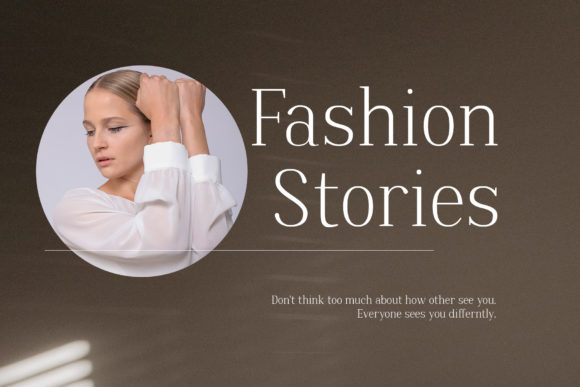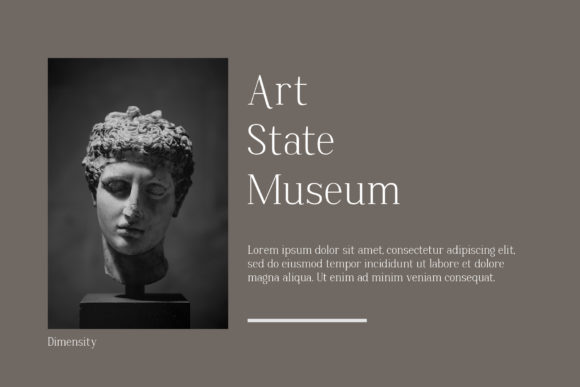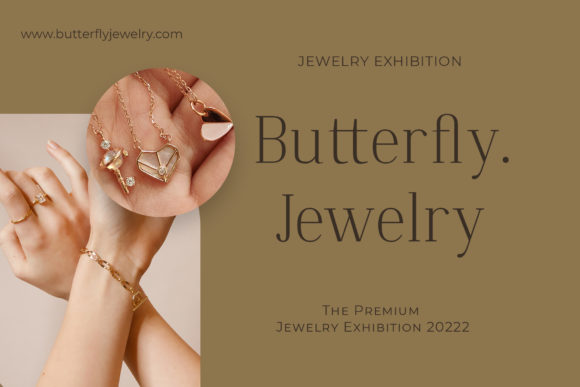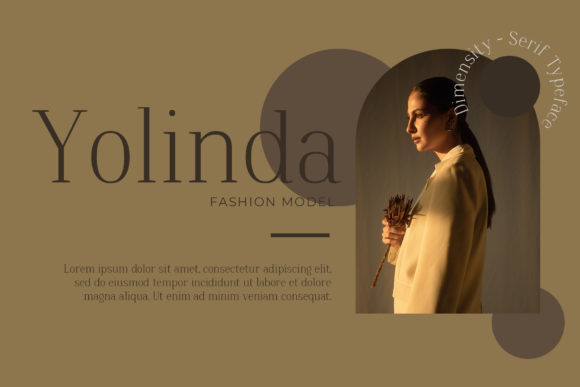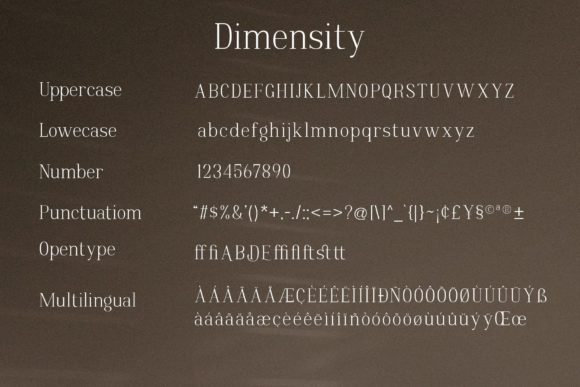
Introducing Dimensity Font: Elevate Your Designs with Elegance and Charm
In the world of typography, a font can make all the difference in the success of a design project. For designers and crafters seeking to add a touch of sophistication and luxury to their work, look no further than the Dimensity Font. This modern serif font is designed to embody elegance and charm in every character, making it the perfect choice for a wide range of applications.
What is Dimensity Font?
Dimensity is a carefully crafted serif font that exudes refinement and poise. Its sleek lines, precise curves, and balanced proportions make it an excellent choice for designs that demand a high level of sophistication. Whether you’re working on a luxury logo, branding materials, editorial designs, or promotional materials, Dimensity Font is sure to impress.
Key Features of Dimensity Font
So, what sets Dimensity Font apart from other fonts on the market? Here are just a few of its key features:
- Complete Character Set: Dimensity Font includes all lowercase and uppercase characters, ensuring that you have everything you need to create stunning designs.
- Numbers and Punctuation: The font also includes a full set of numbers and punctuation marks, making it easy to craft beautiful text.
- Standard Ligatures: Dimensity Font features an array of standard ligatures, which help to create a seamless and cohesive look in your designs.
- International Characters: With a selection of international characters, you can use Dimensity Font to create designs that cater to a global audience.
Perfect for Luxury and Fashion Brands
Dimensity Font is particularly well-suited for luxury logos, branding, and promotional materials. Its elegant and refined appearance makes it an excellent choice for high-end fashion brands, cosmetic companies, and lifestyle publications. Whether you’re creating a logo, brochure, or magazine spread, Dimensity Font is sure to help you achieve a sophisticated and luxurious look.
Applications for Dimensity Font
The versatility of Dimensity Font makes it suitable for a wide range of applications, including:
- Luxury Logos: Create a lasting impression with a custom logo that exudes elegance and sophistication.
- Branding: Establish a strong brand identity with Dimensity Font, perfect for high-end companies and lifestyle brands.
- Editorial Designs: Add a touch of refinement to your editorial designs, including magazines, newspapers, and books.
- Women’s Magazines: Dimensity Font is an excellent choice for women’s magazines, providing a feminine and sophisticated look.
- Cosmetic Brands: Elevate your cosmetic brand with a font that embodies luxury and glamour.
- Promotional Designs: Create eye-catching promotional materials, including brochures, flyers, and posters.
- Fashion Industry: Dimensity Font is perfect for fashion brands, designers, and retailers seeking to create a high-end look.
Why Choose Dimensity Font?
With so many fonts available, why choose Dimensity Font? Here are just a few reasons:
- Unique and Elegant Design: Dimensity Font boasts a distinctive and refined design that sets it apart from other fonts.
- High-Quality Typography: The font is carefully crafted to ensure precise and clean typography, making it perfect for high-end designs.
- Versatility: Dimensity Font can be used for a wide range of applications, from luxury logos to editorial designs.
In conclusion, Dimensity Font is an exceptional choice for designers and crafters seeking to add a touch of elegance and sophistication to their work. With its modern serif design, complete character set, and versatility, this font is perfect for luxury logos, branding, editorial designs, and more. Whether you’re working on a high-end fashion project or a promotional design, Dimensity Font is sure to help you achieve a stunning and refined look.